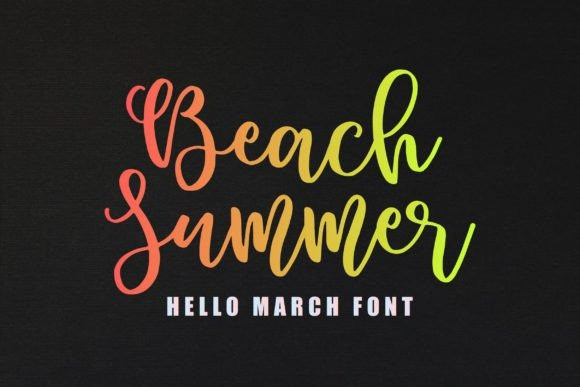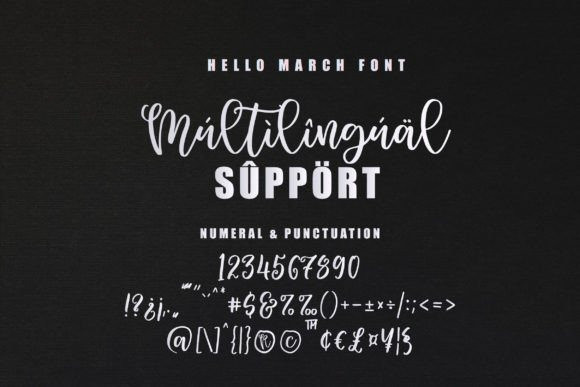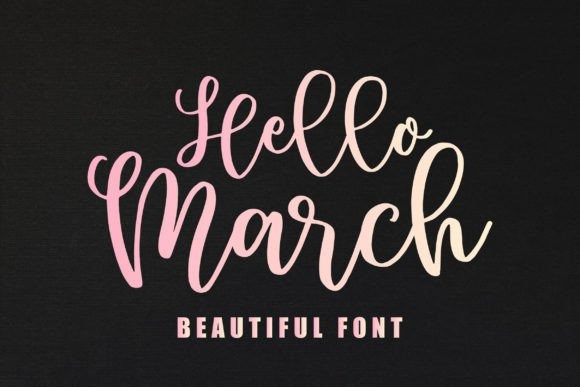
Hello March Font
Hello March Script Font is a font that exudes romance and style. With its graceful, flowing letterforms and delicate curves, this font is the perfect choice for wedding invitations, love letters, and other romantic projects. Add a touch of sophistication and charm to your designs with this beautiful script font!